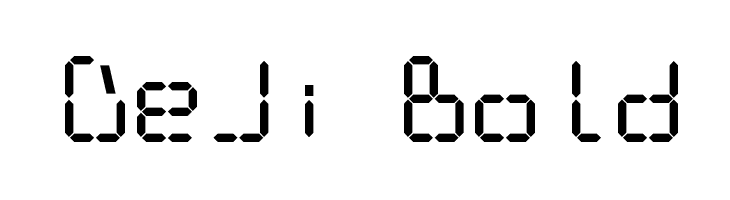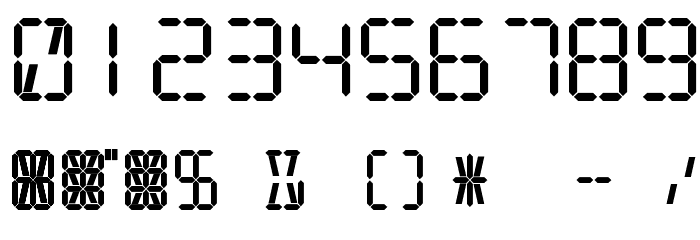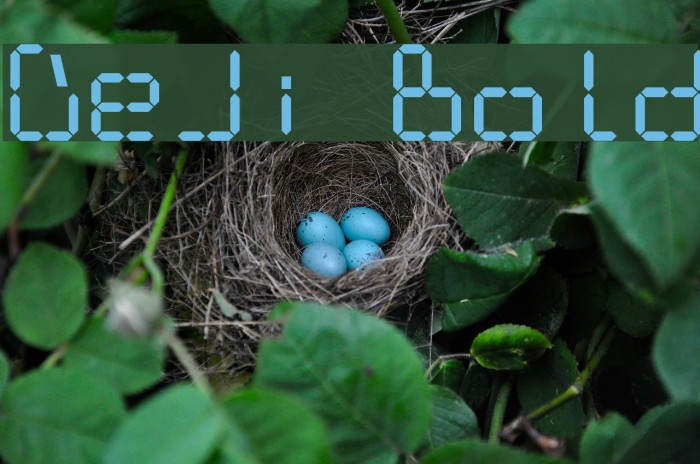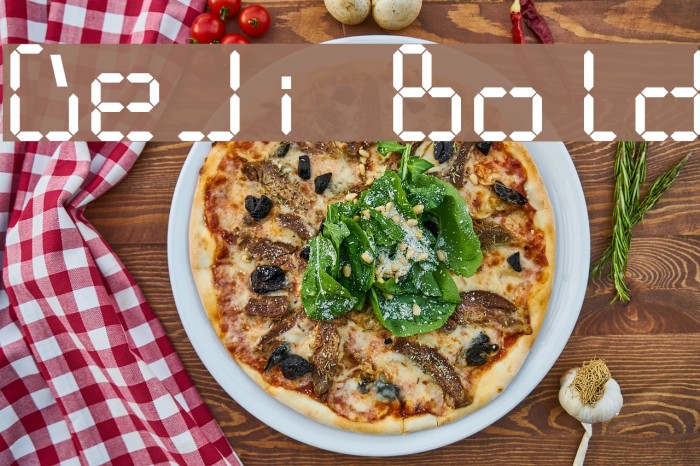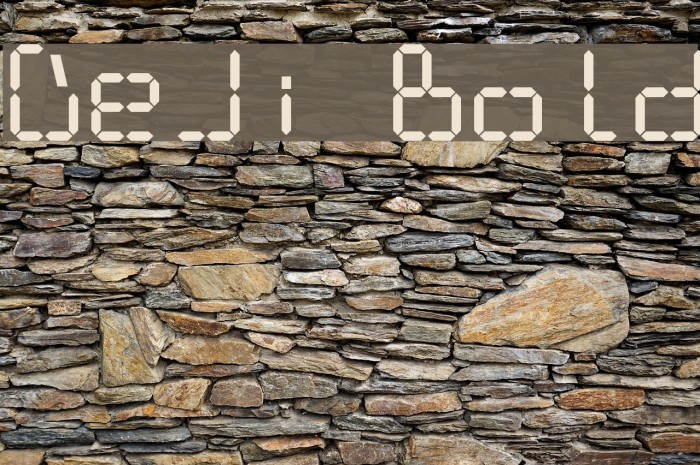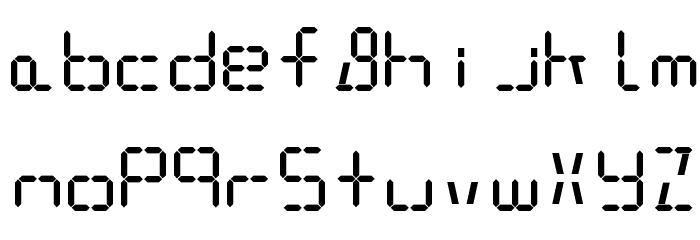
DeJi Bold Font
This font features a unique, digital-inspired design reminiscent of LED displays. Each character is constructed from a series of segmented lines, creating a geometric and futuristic appearance. The uppercase and lowercase letters maintain a consistent style, with angular edges and a uniform structure. Numbers and special characters follow the same segmented pattern, ensuring a cohesive look across all glyphs. The font's distinct style makes it ideal for projects that require a modern, tech-savvy aesthetic.
A digital-inspired font with segmented, geometric characters.
• Proposed Projects: Ideal for digital displays, tech-themed graphics, modern posters, and futuristic branding.
• Category: Decorative/Display
• Bold: Yes
• Italic: No
• Weight: Bold
• Width: Normal
• Character Spacing: Normal
• Contrast: Low
• Overall Style: Modern
• Use Case: Headlines, Logos, Digital displays